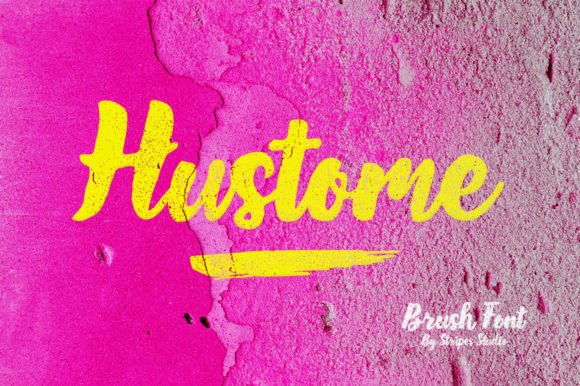
Introducing Hustome Font, the ultimate font for captivating movie scripts, screenplay, and all your creative ventures. Unleash the power of emotion and immerse your readers in a world of cinematic storytelling.
Hustome Font, a creation of Stripes Studio, is an exquisite handwritten font that harmoniously blends classic calligraphy with a touch of contemporary flair. Its elegant strokes and graceful curves dance across the page, evoking a sense of timeless sophistication.
With Hustome Font, you'll transport your audience to the heart of your story. Its carefully crafted characters command attention, inviting readers to lose themselves in the narrative. Each letter is a work of art, meticulously designed to convey emotion and intrigue.
But Hustome Font is not just a beautiful font; it's a versatile powerhouse. Whether you're crafting a heartfelt love story, a spine-chilling thriller, or an epic fantasy adventure, Hustome Font effortlessly adapts to your creative vision.
Elevate your scripts to new heights with Hustome Font, a font that captivates, enchants, and leaves a lasting impression. Turn your words into a cinematic masterpiece and let your stories come alive like never before.